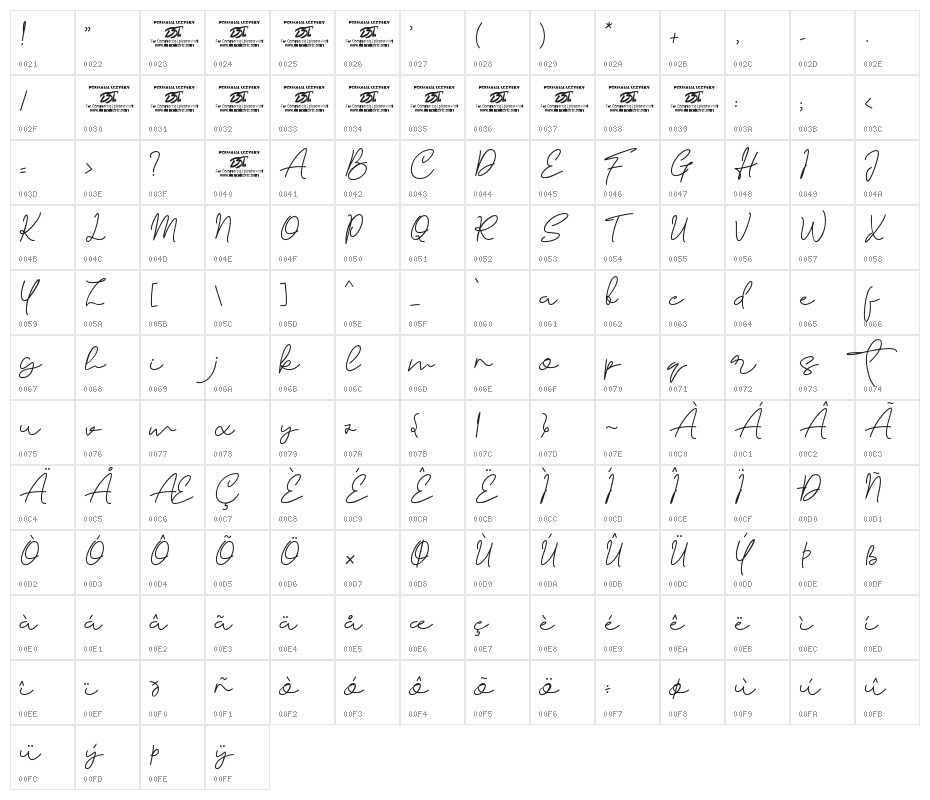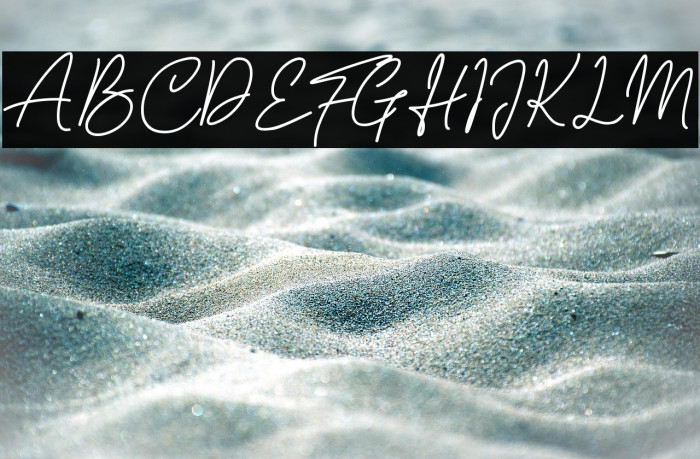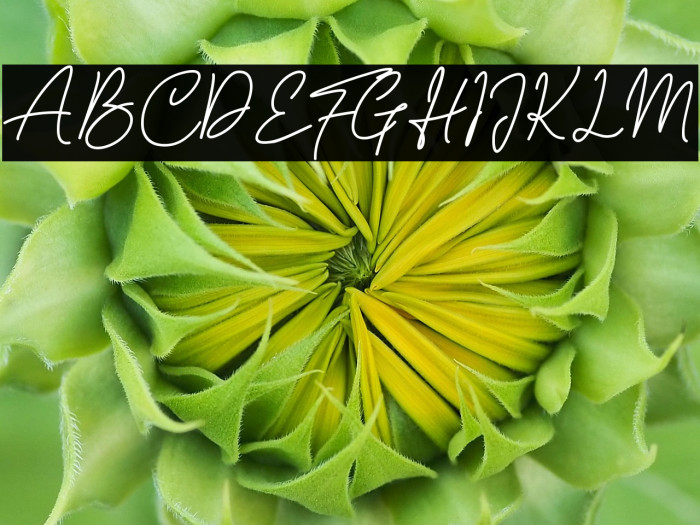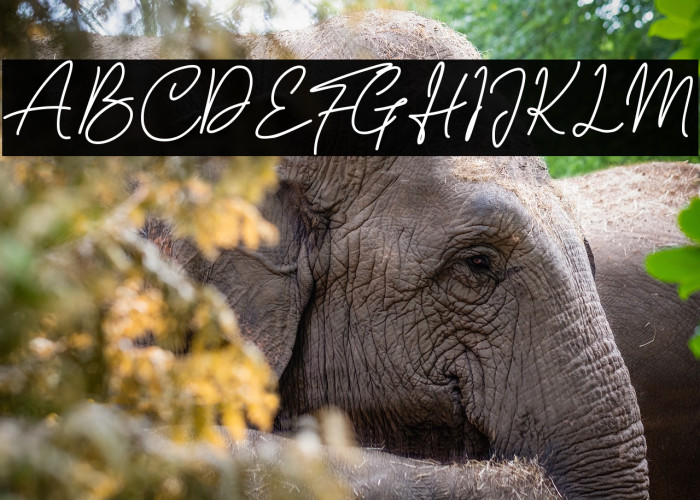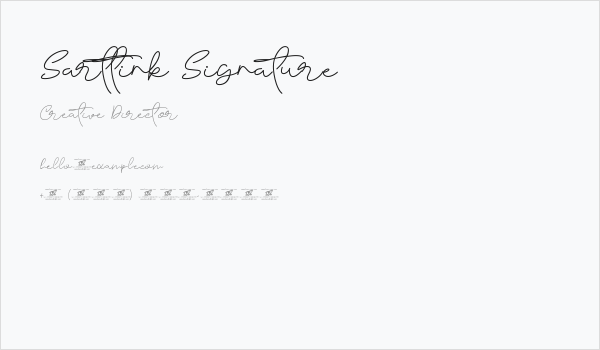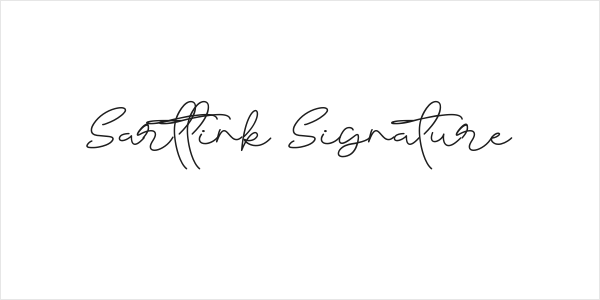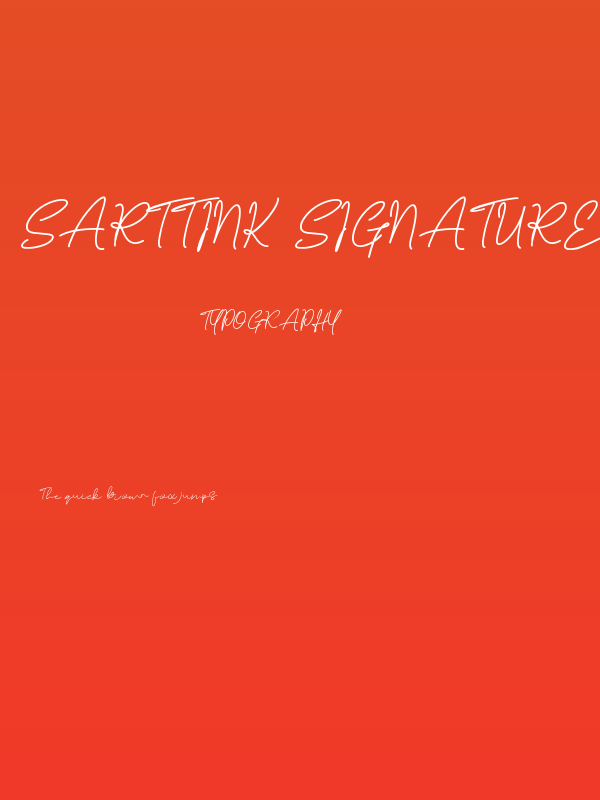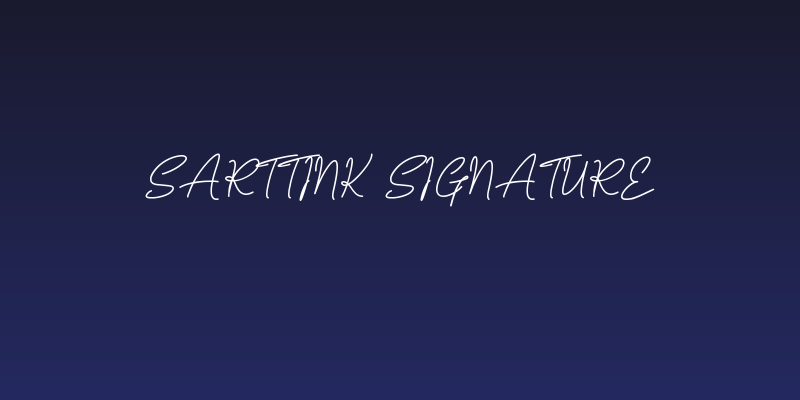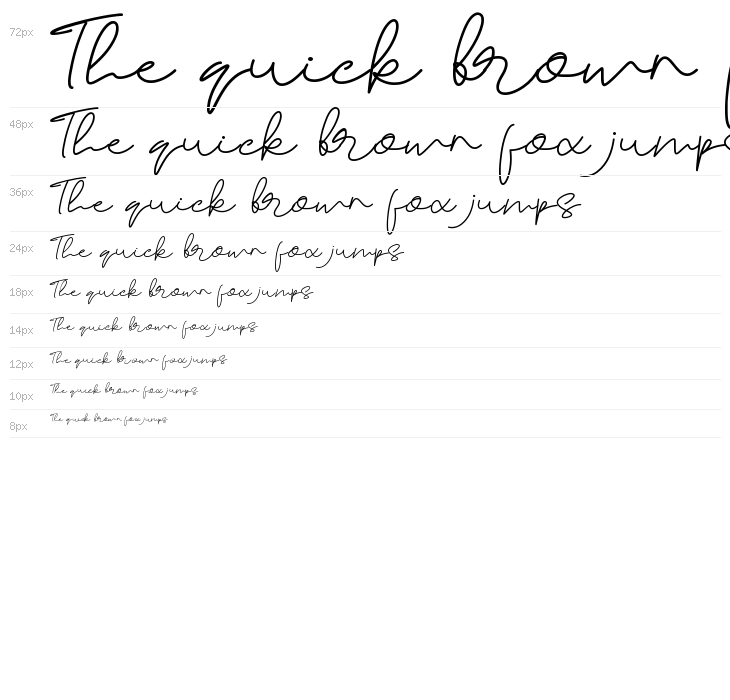
Sarttink Signature Font
Sarttink Signature Description
This elegant script font features a fluid, handwritten style that exudes sophistication and charm. The letters are gracefully connected, creating a seamless flow that mimics natural handwriting. The uppercase letters stand tall with a slight slant, while the lowercase letters maintain a consistent rhythm, enhancing readability. The font's delicate strokes and subtle curves add a touch of elegance, making it ideal for projects that require a personal and artistic touch. The special characters are thoughtfully designed to complement the overall aesthetic, ensuring versatility across various applications.
Overall StyleElegant, Artistic
Use CaseLogos, Invitations, Personal Branding
Proposed ProjectsIdeal for wedding invitations, personal branding, greeting cards, and elegant logo designs.